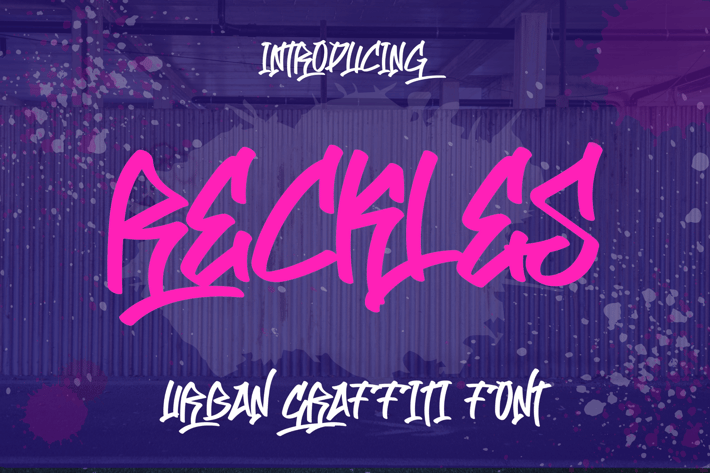
Rackles Font
Proudly present our new product Rackles graffiti font
This font is inspired by a graffiti street design that I saw on a street wall, with special skill to make the font look cool